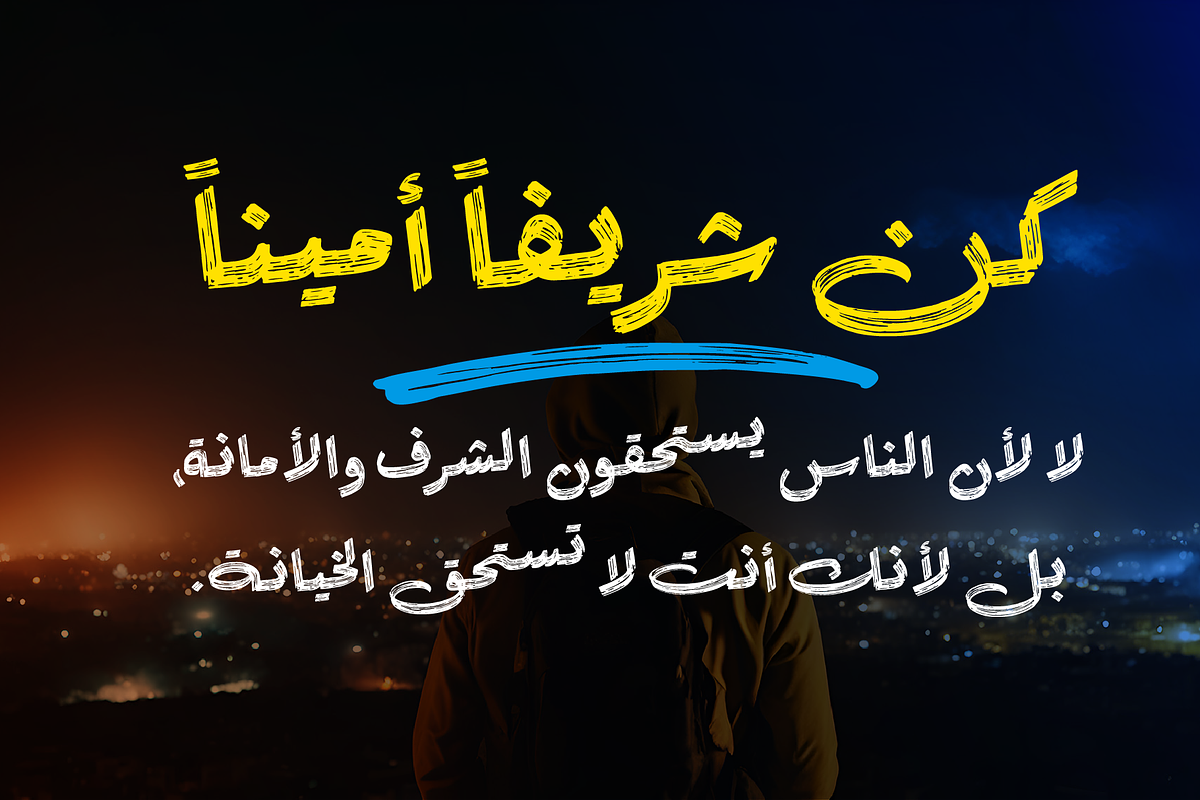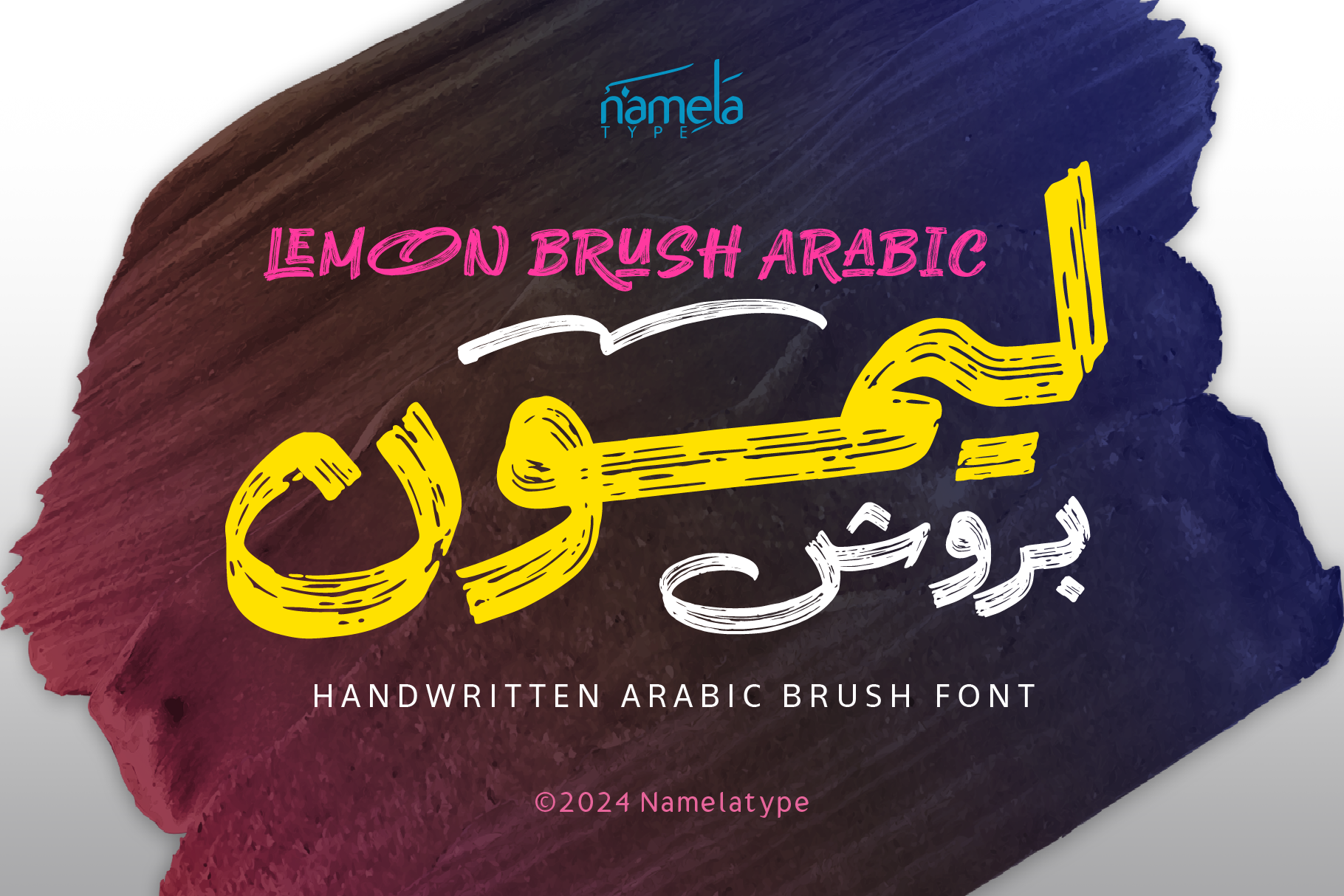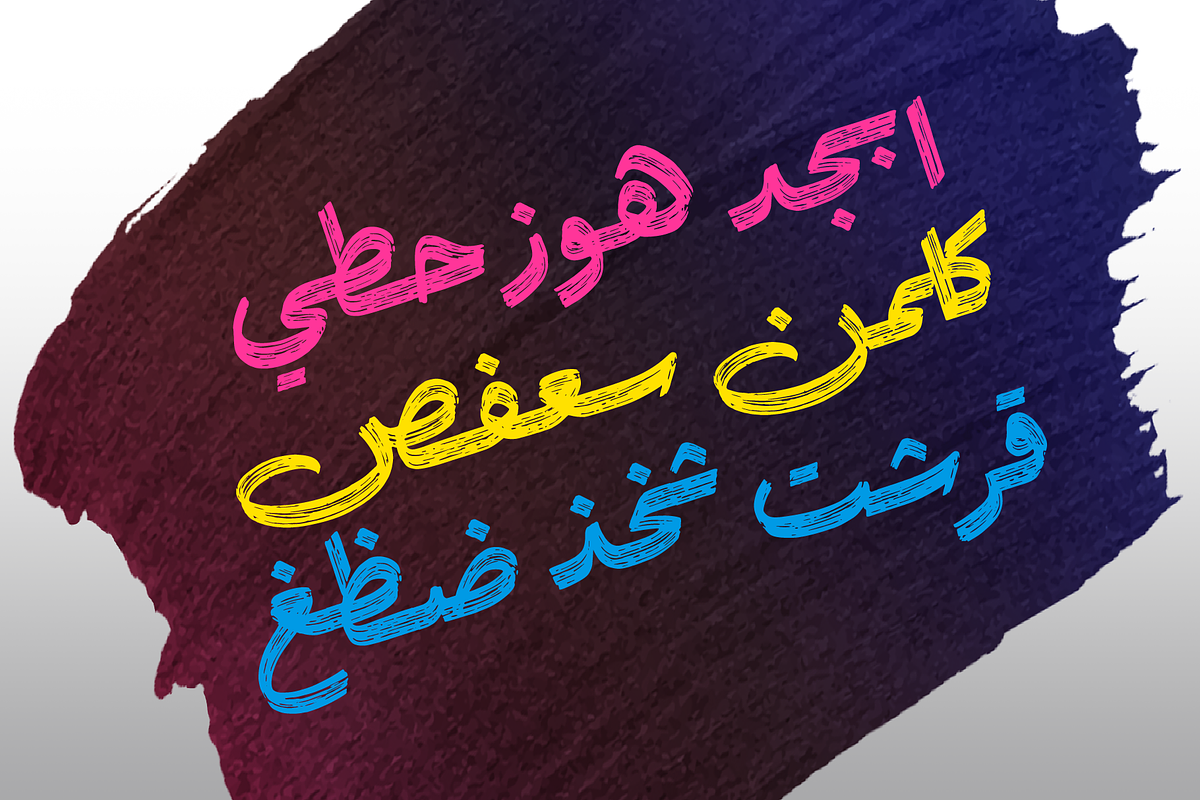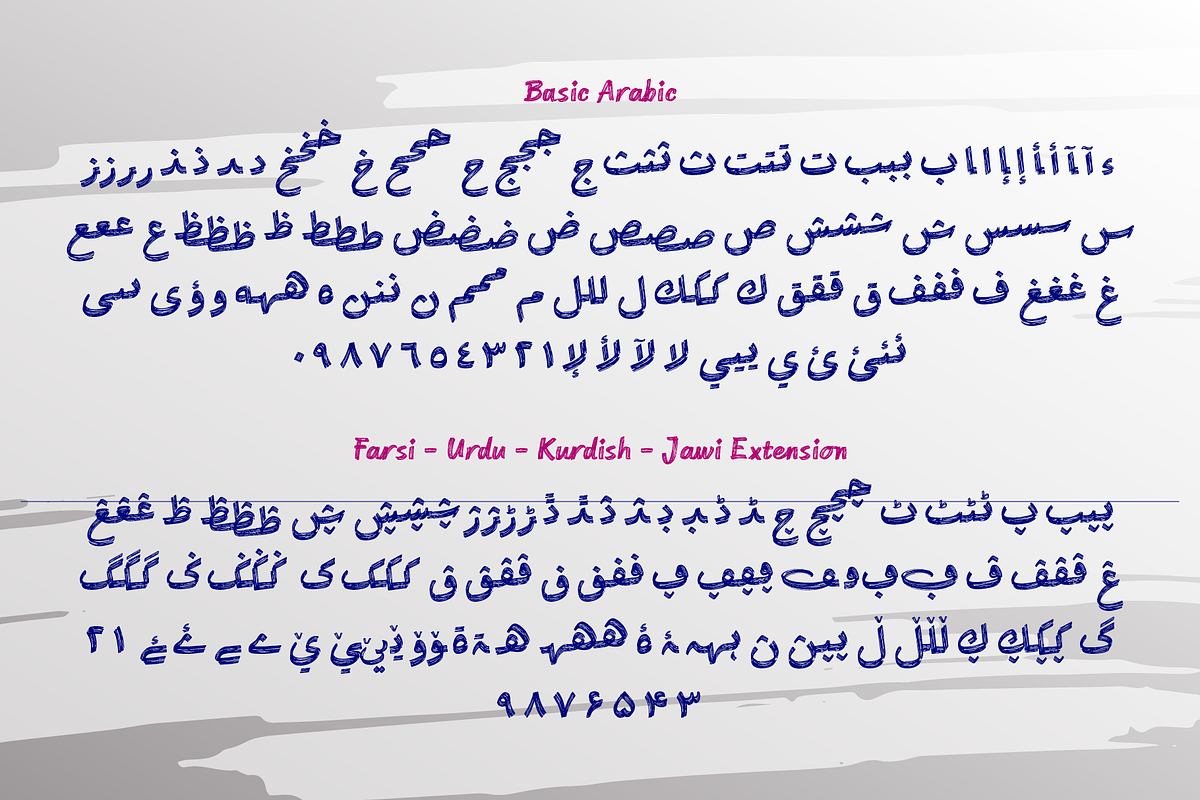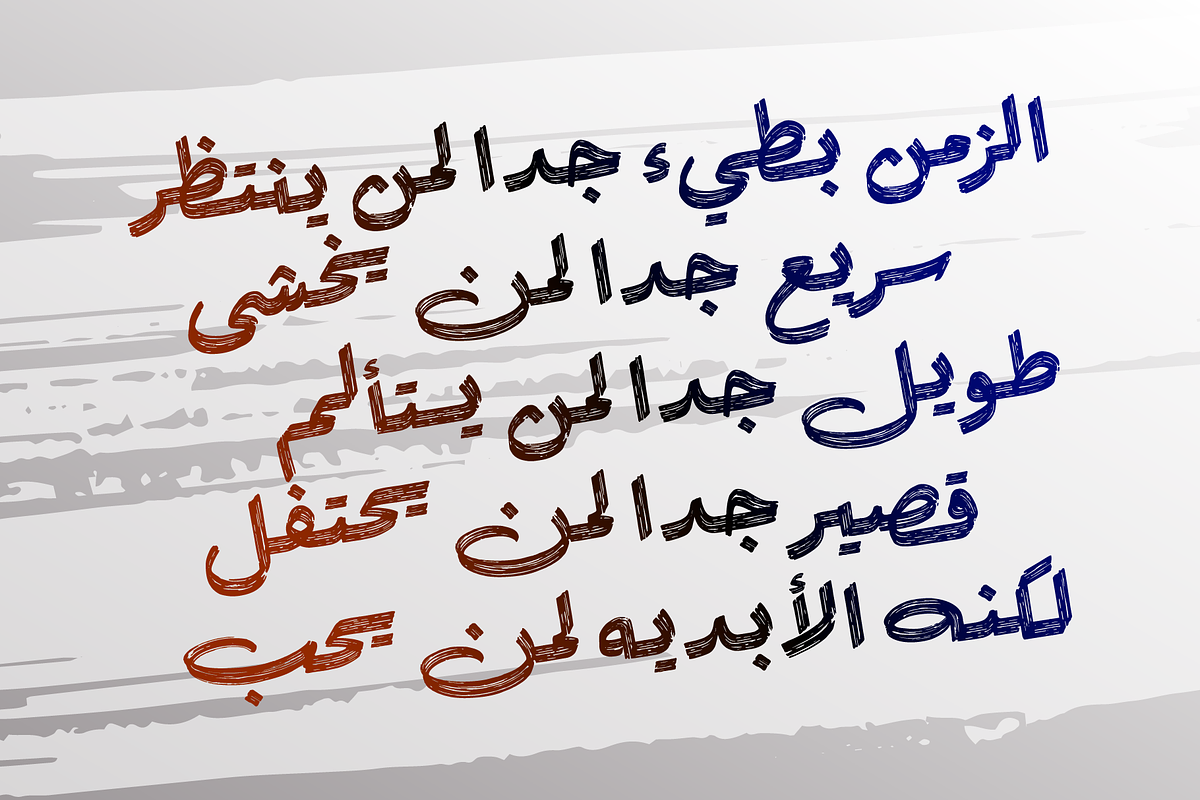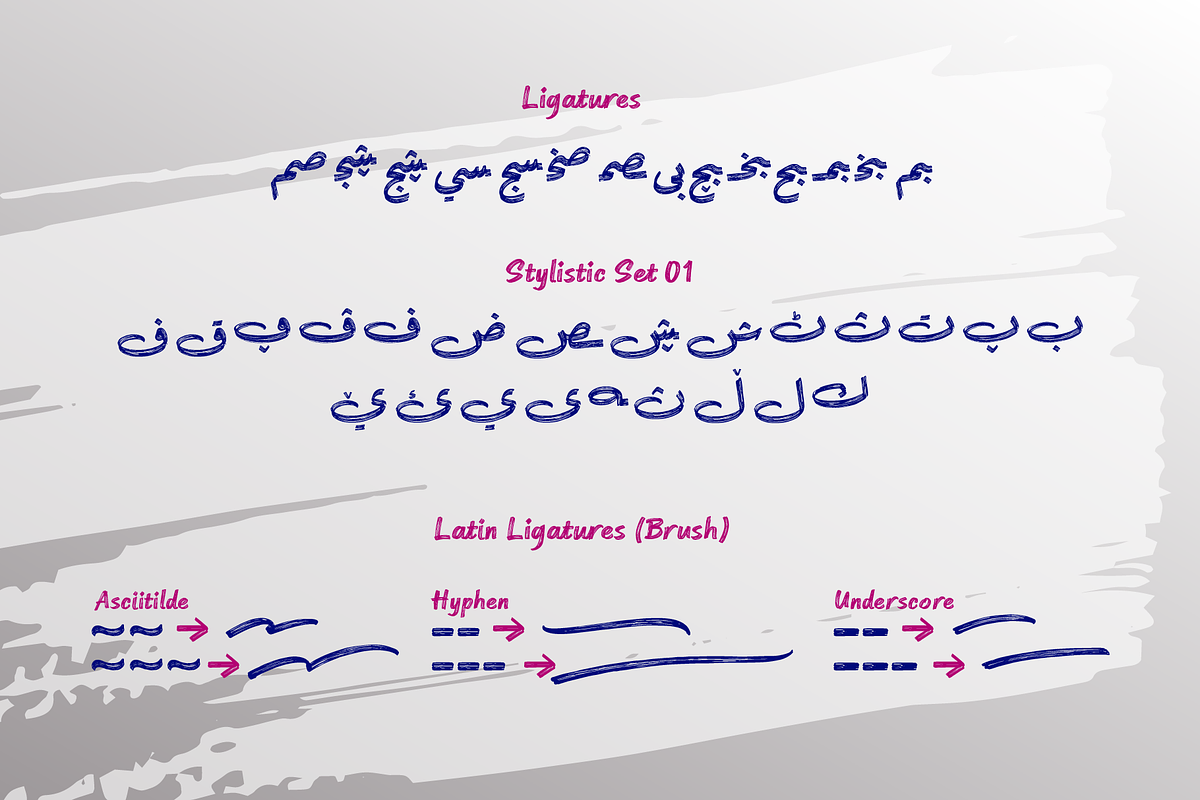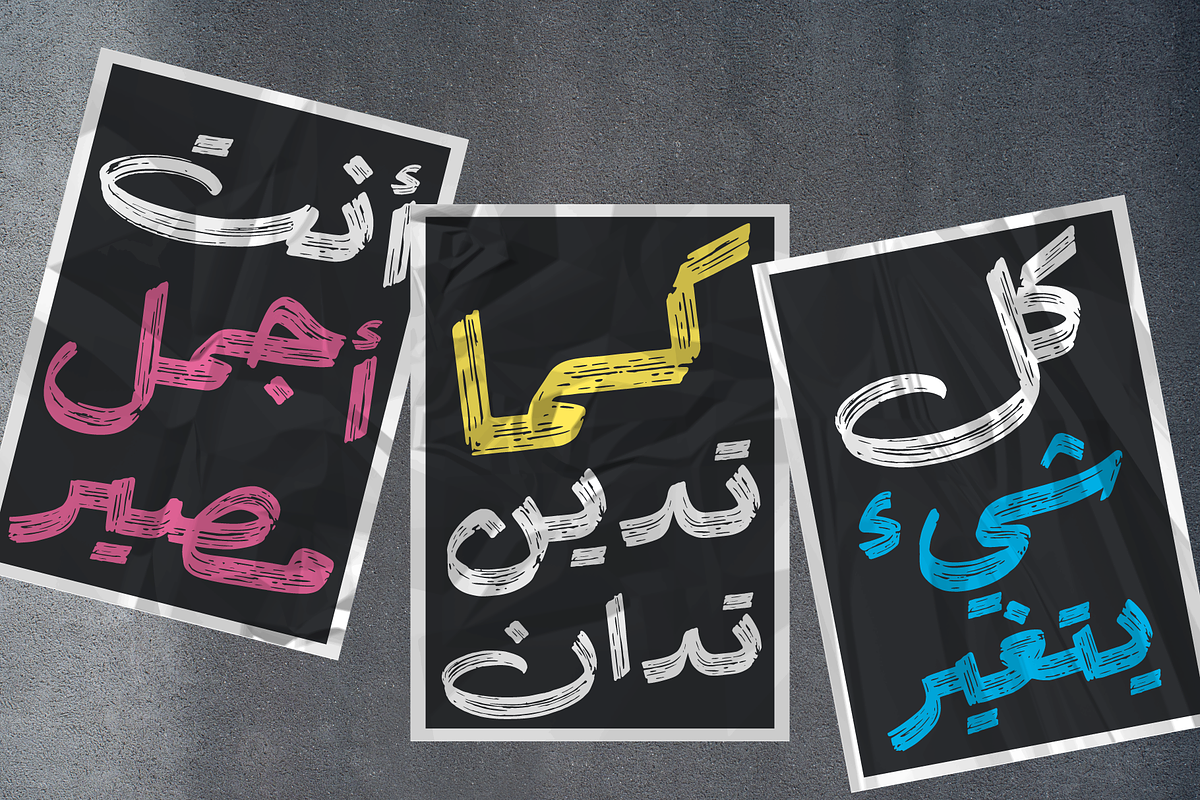
Lemon Brush Arabic | Brush Font
Lemon Brush Arabic is sibling of the font Lemon Brush, with the addition of Arabic characters that use the basic calligraphic form of Riqah rules. Lemon Brush Arabic is a handwritten brush font that uses a dry brush stroke style, giving it a nice texture and flow. Lemon Brush has many alternates and ligatures to make it look more like natural handwriting
This is a perfect font choice for header text, poster designs, logos, product designs, merchandise, album covers, and much more.